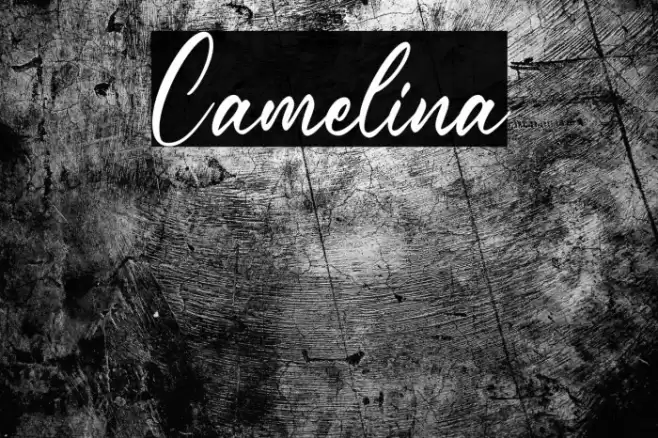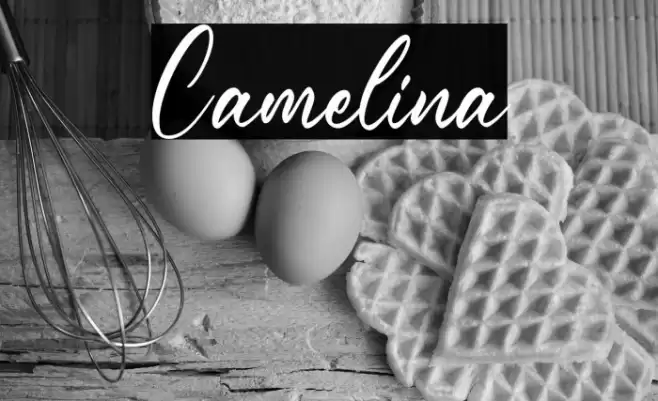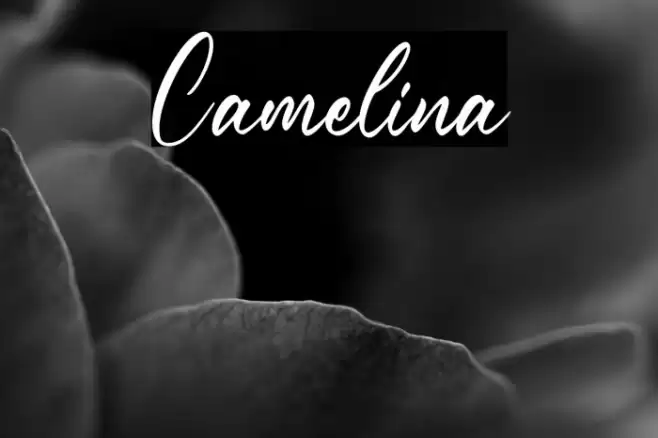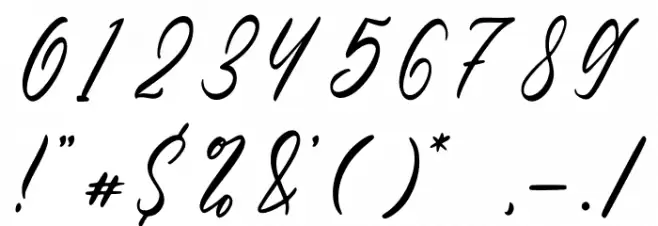
Camelina Font
Camelina Description
This elegant script font features a flowing, cursive style with smooth, connected strokes that give it a handwritten appearance. The uppercase letters are slightly more embellished, with graceful loops and swashes, while the lowercase letters maintain a consistent, fluid form. The numerals and special characters complement the overall aesthetic, maintaining the same cursive style. The font's design is both sophisticated and approachable, making it suitable for a variety of creative applications.
A flowing, cursive script font with elegant, connected strokes from Uncategorized fonts.
- Proposed Projects: Ideal for wedding invitations, greeting cards, branding, and logo design where a personal, elegant touch is desired.
- Overall Style: Elegant, Handwritten
- Use Case: Logos, Invitations, Greeting Cards